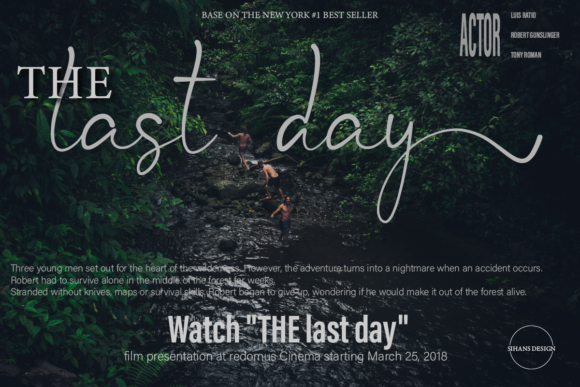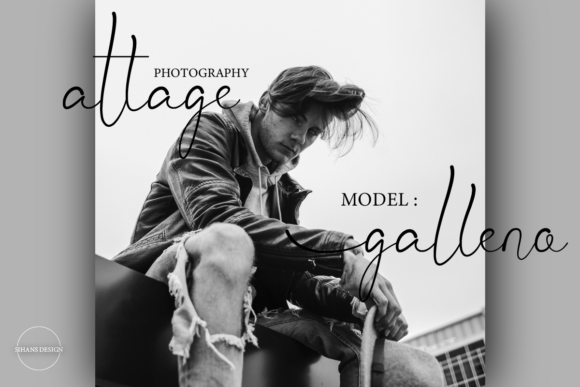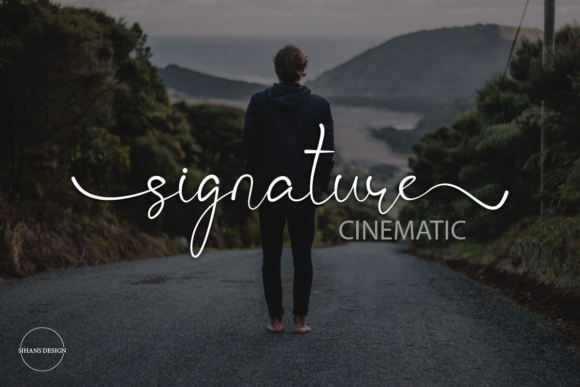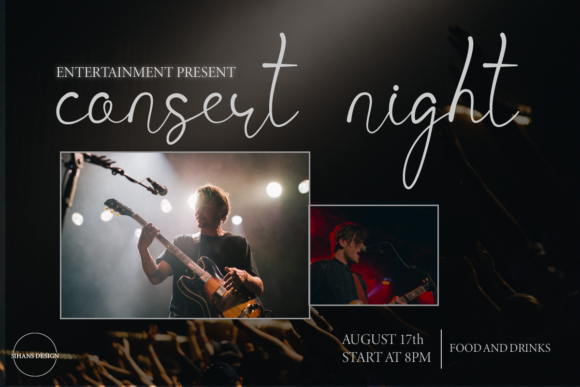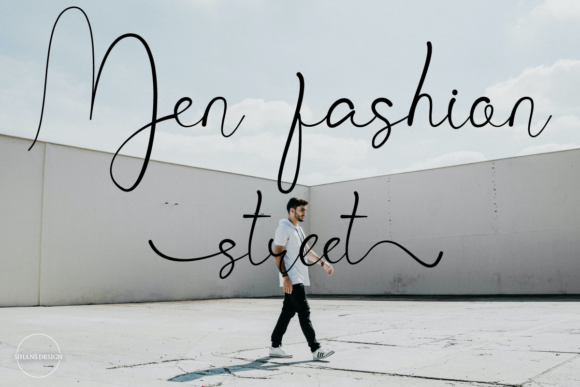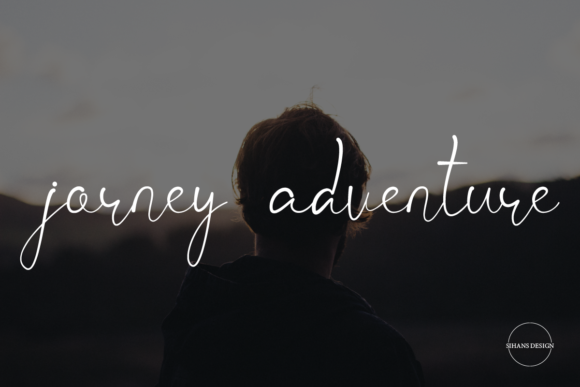
Introducing Baseline Font: Elevate Your Designs with Luxury and Elegance
Are you tired of using the same old fonts in your design projects? Do you want to add a touch of luxury and sophistication to your creations? Look no further than Baseline Font, a beautiful light handwritten font that is sure to make your designs stand out. With its unique feel and stunning impact, Baseline Font is the perfect choice for designers and crafters who want to elevate their work to the next level.
What Makes Baseline Font Special?
Baseline Font is a one-of-a-kind font that boasts a range of features that set it apart from other fonts on the market. Here are just a few things that make Baseline Font special:
- Unique Feel: Baseline Font has a distinctive, handwritten feel that adds a personal touch to any design project. Its light and airy texture makes it perfect for creating elegant and sophisticated designs.
- Stunning Impact: When used in a design project, Baseline Font is sure to make a statement. Its unique feel and beautiful lettering make it perfect for creating eye-catching headlines, titles, and more.
- PUA Encoded: Baseline Font is PUA (Private Use Area) encoded, which means that you can access all of the amazing glyphs and ligatures with ease. This makes it easy to create beautiful, intricate designs that are sure to impress.
The Benefits of Using Baseline Font
So why should you choose Baseline Font for your design projects? Here are just a few benefits of using this amazing font:
- Adds Luxury and Sophistication: Baseline Font is the perfect choice for designers who want to add a touch of luxury and sophistication to their designs. Its elegant, handwritten feel makes it perfect for creating high-end designs that are sure to impress.
- Versatile: Baseline Font is a versatile font that can be used in a range of design projects, from branding and packaging to wedding invitations and more.
- Easy to Use: Despite its intricate and beautiful design, Baseline Font is easy to use and works seamlessly with most design software.
How to Use Baseline Font in Your Designs
Using Baseline Font in your designs is easy. Here are a few tips to get you started:
- Pair it with Other Fonts: Baseline Font pairs perfectly with other fonts, making it easy to create beautiful, cohesive designs. Try pairing it with a bold, sans-serif font for a striking contrast.
- Use it for Headlines and Titles: Baseline Font is perfect for creating eye-catching headlines and titles. Its unique feel and stunning impact make it sure to grab attention.
- Experiment with Different Colors: Baseline Font looks amazing in a range of colors. Experiment with different colors and textures to find the perfect look for your design.
Why Designers and Crafters Love Baseline Font
Baseline Font has quickly become a favorite among designers and crafters. Here are just a few reasons why:
- Unique and Versatile: Baseline Font is a unique and versatile font that can be used in a range of design projects. Its elegant, handwritten feel makes it perfect for creating beautiful, intricate designs.
- High-Quality Design: Baseline Font is a high-quality font that is designed with precision and care. Its beautiful lettering and intricate details make it perfect for creating professional-looking designs.
- Easy to Use: Baseline Font is easy to use and works seamlessly with most design software. This makes it perfect for designers and crafters of all skill levels.
| Author | Comactype Foundry |
In conclusion, Baseline Font is a beautiful light handwritten font that is sure to elevate your designs to the next level. With its unique feel, stunning impact, and PUA encoding, it’s the perfect choice for designers and crafters who want to add a touch of luxury and sophistication to their creations. Whether you’re creating branding and packaging, wedding invitations, or more, Baseline Font is sure to make your designs stand out.